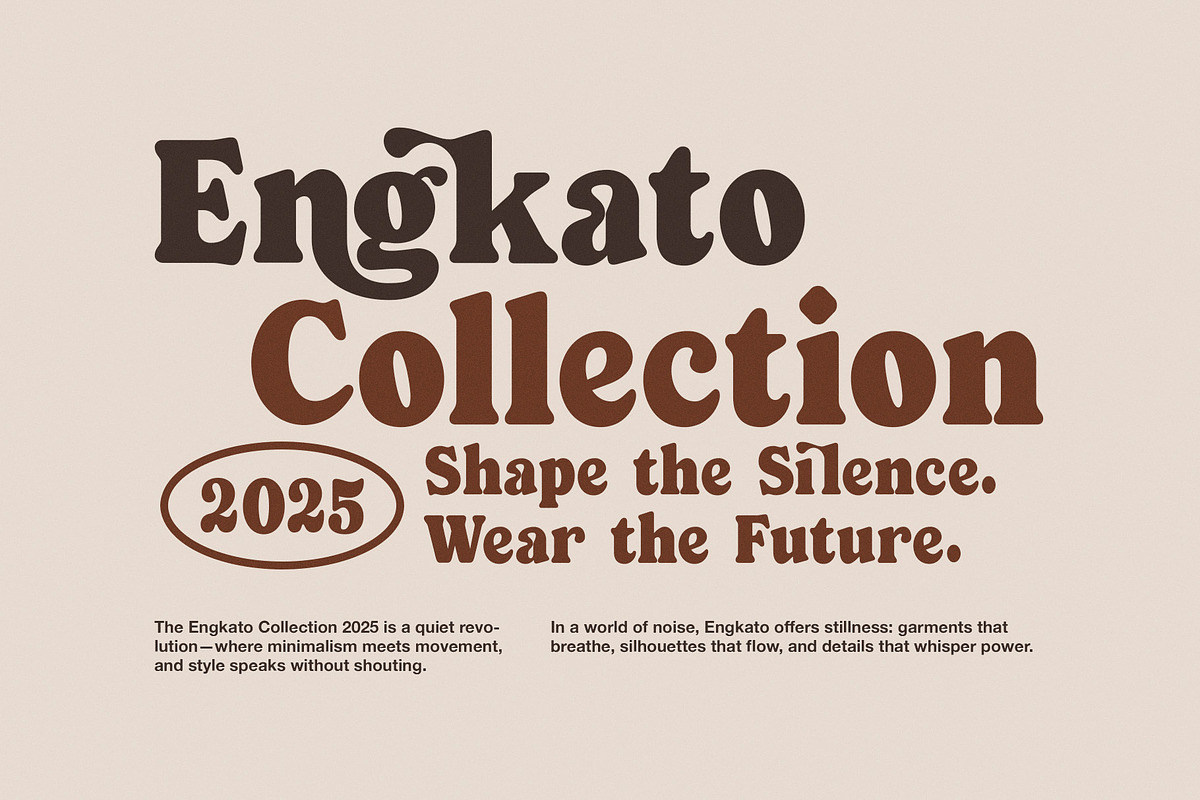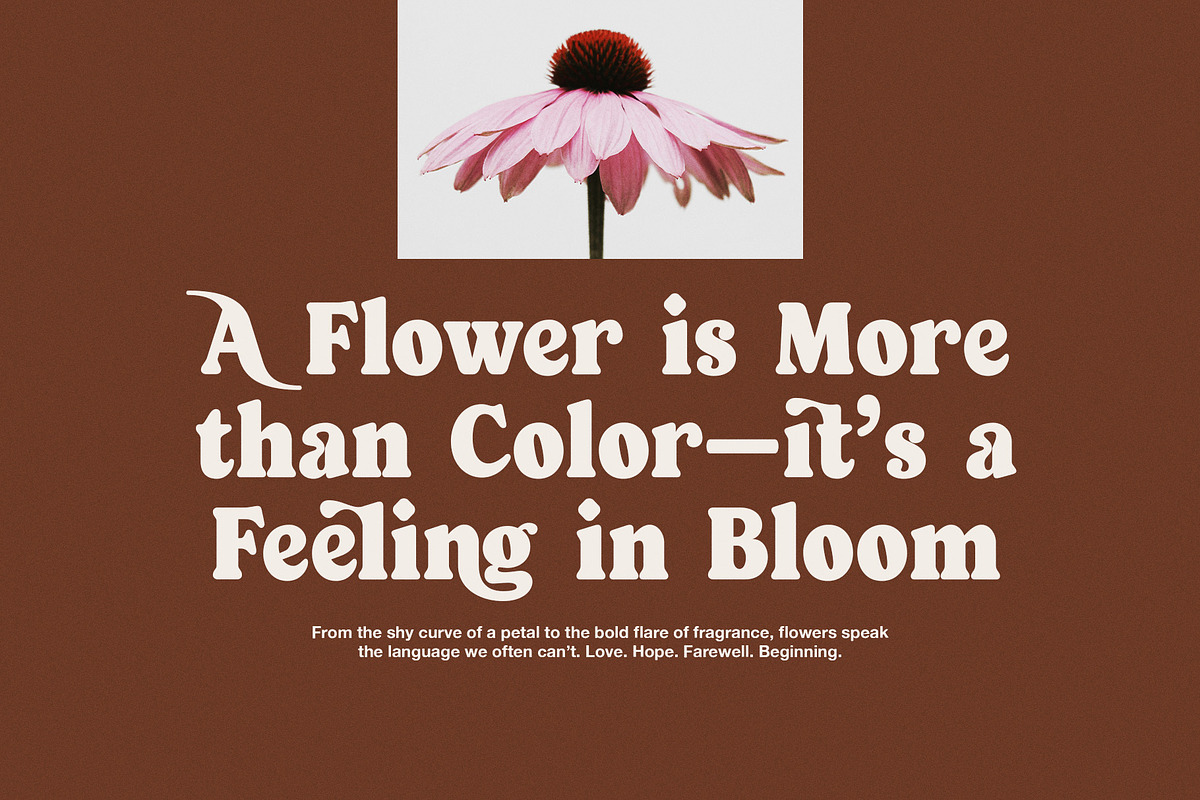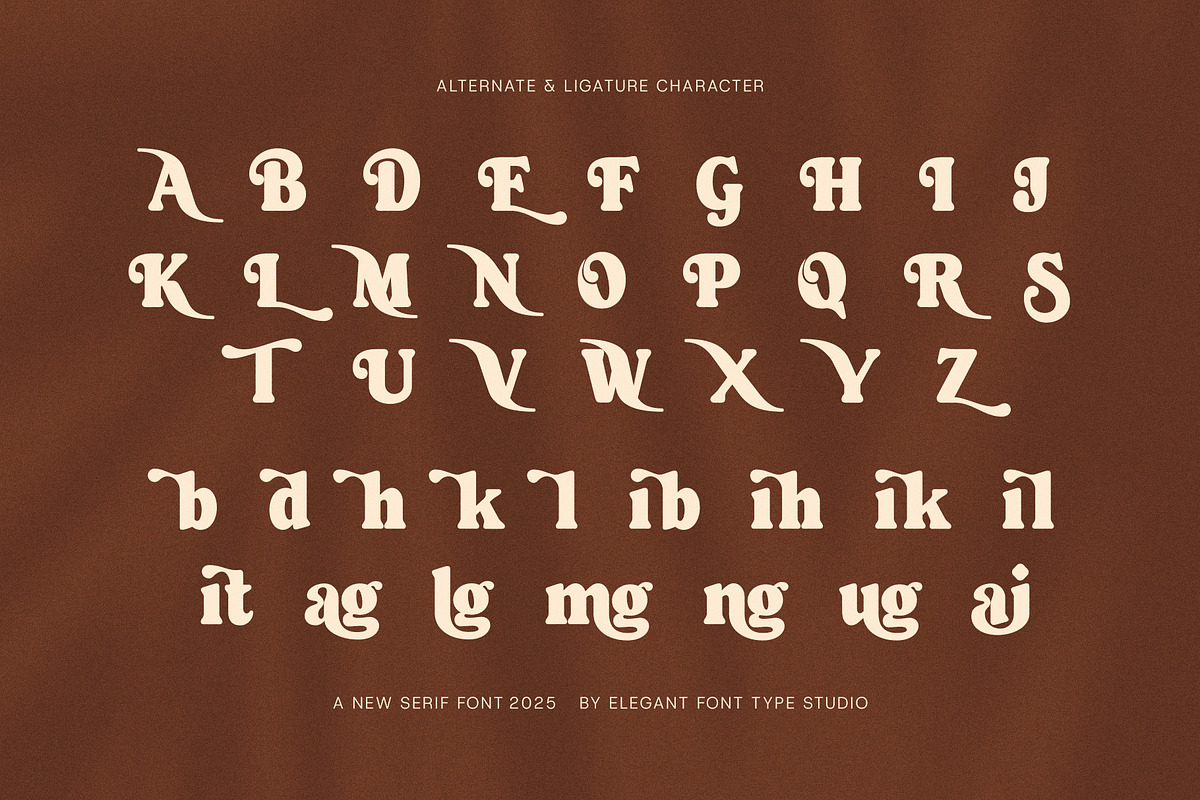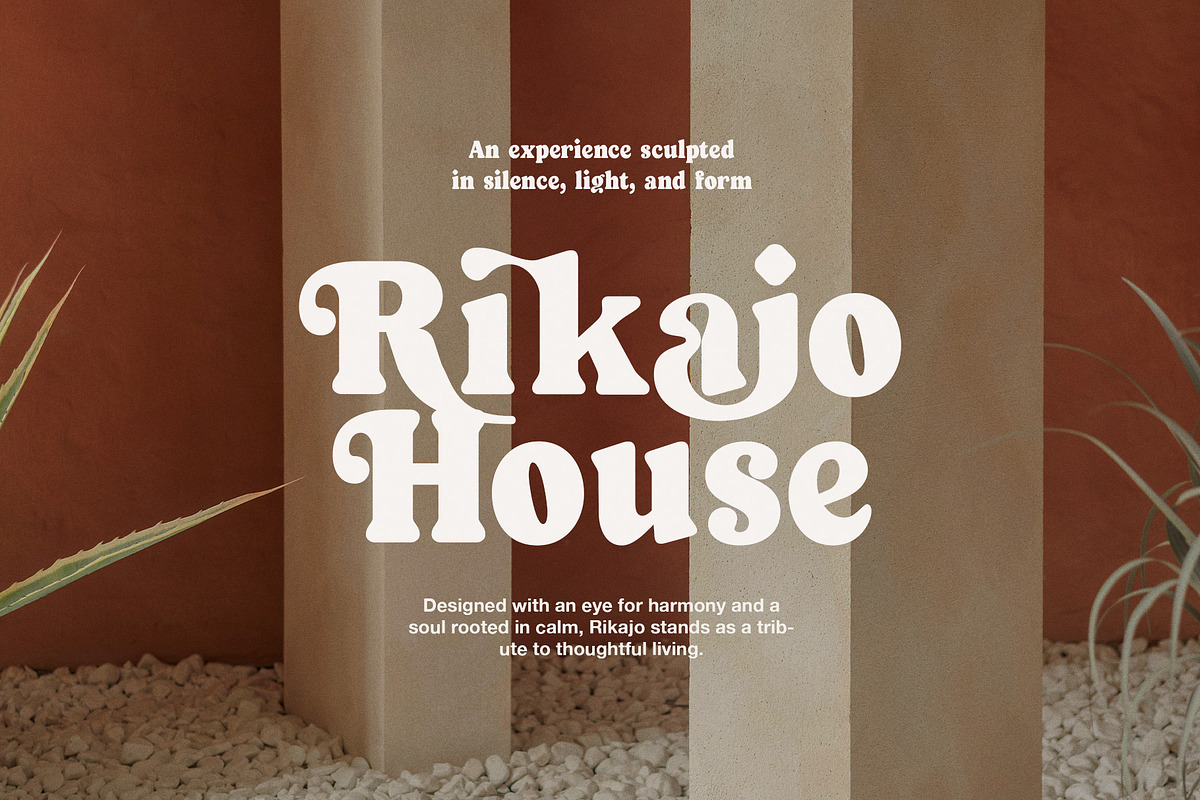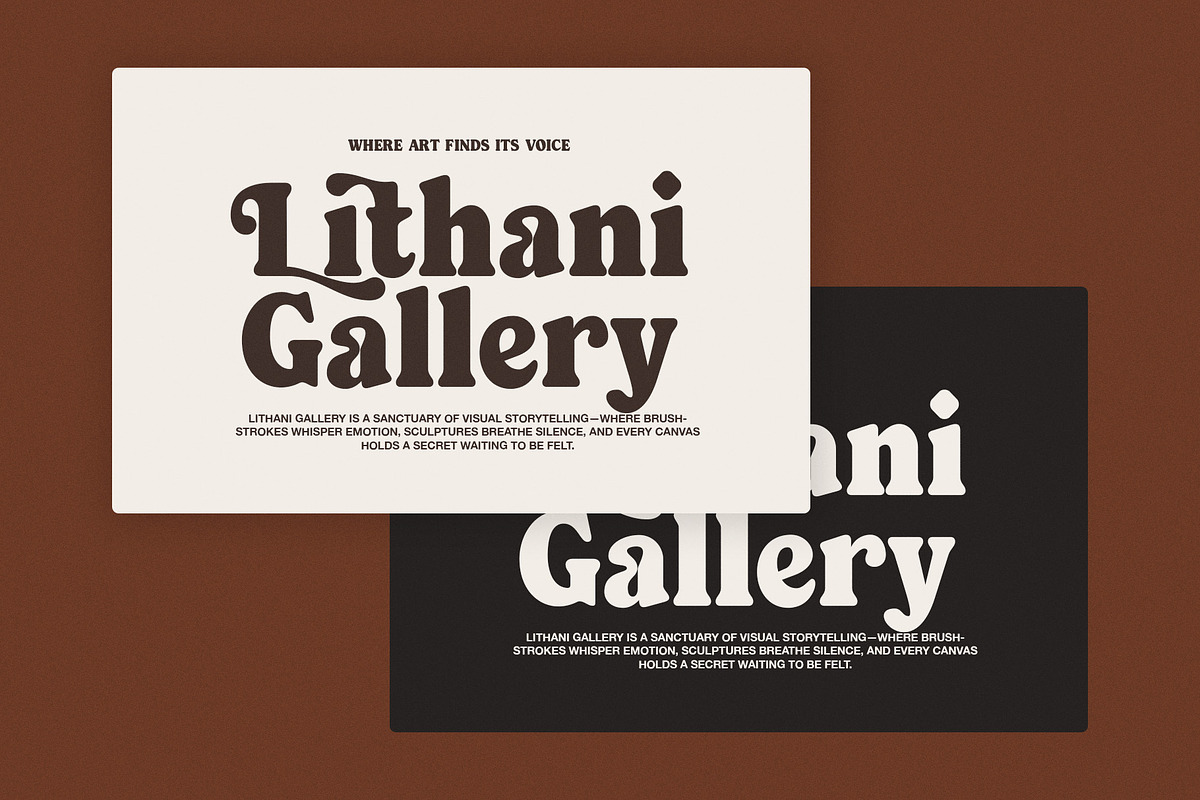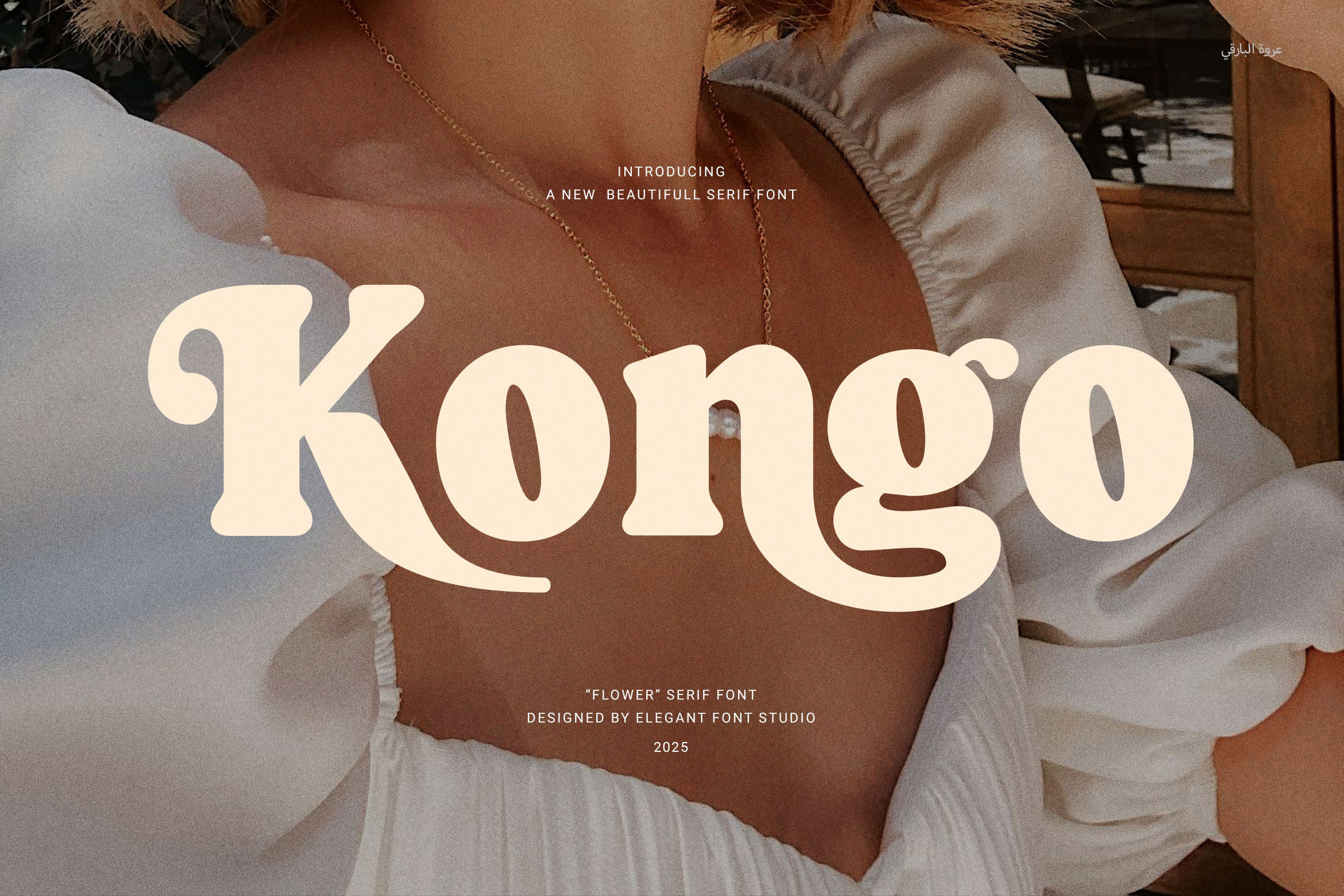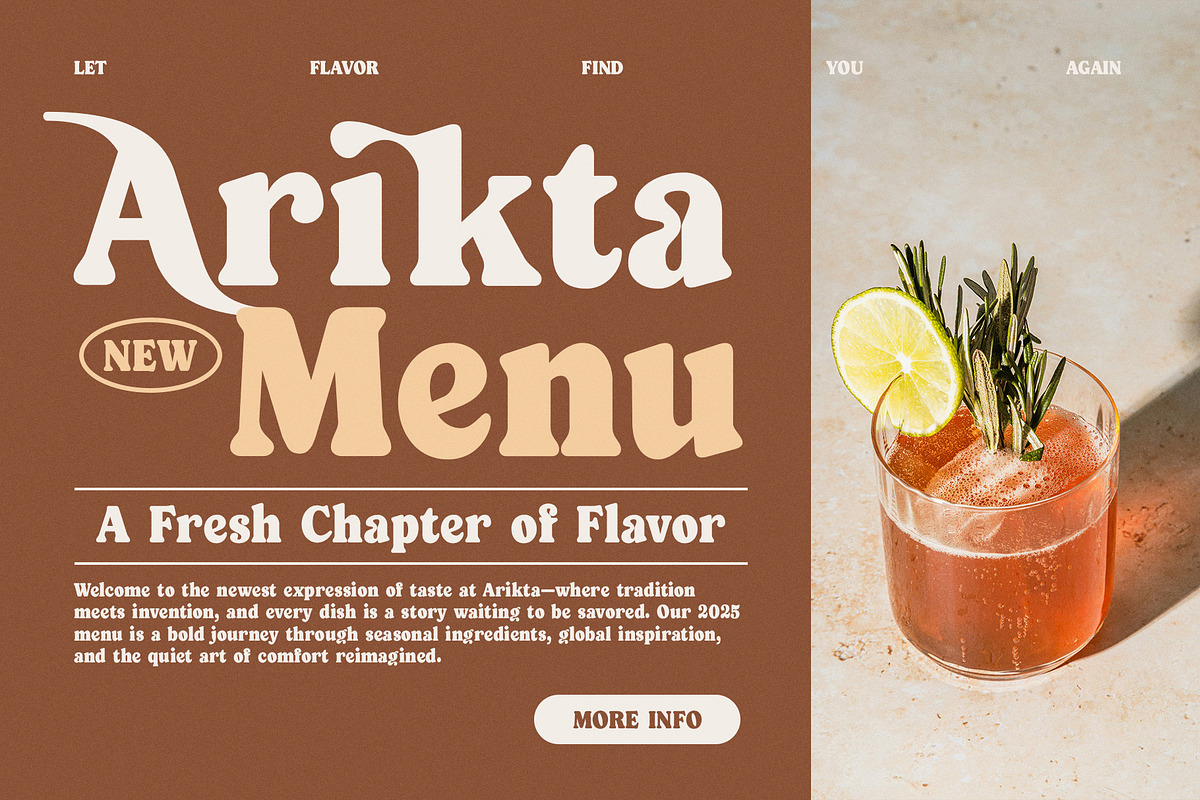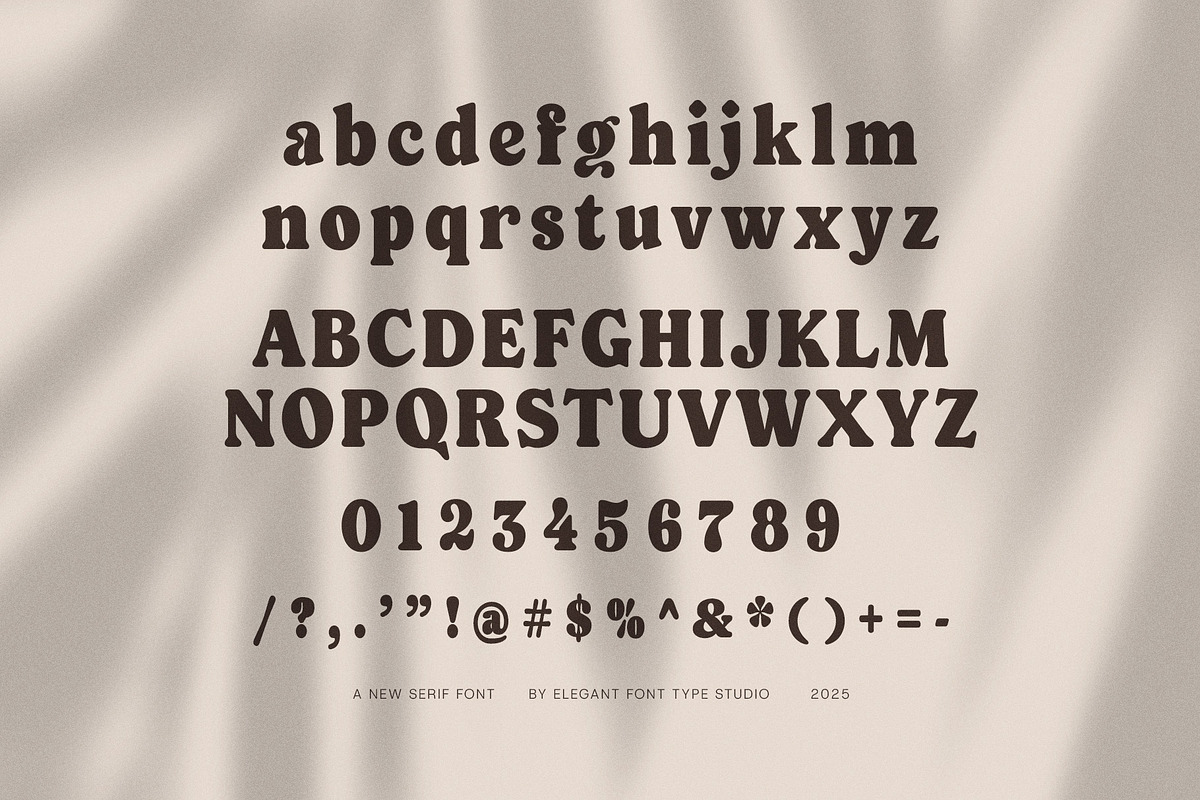
Kongo Elegant Serif Font
Kongo Elegant Serif Font — Modern Serif Typeface for Distinctive Branding
Kongo Elegant Serif Font is a modern, stylish serif typeface crafted to meet all branding needs. Its proportional letterforms and smooth functional ligatures bring harmony and elegance to every design. Whether you’re working on logos, websites, magazines, layouts, product packaging, or advertisements, Kongo elevates your project with a polished and professional look.
Designed for versatility, Kongo suits a wide range of industries, including boutiques, food brands, fashion, and corporate businesses. It balances readability and beauty, ensuring your message connects clearly with your audience in both print and digital formats. The carefully crafted ligatures add a refined touch that makes text flow naturally and attractively.
Key features of Kongo Elegant Serif Font:
Modern serif design with proportional shapes for balanced typography
Functional ligatures that enhance text flow and aesthetics
Perfect for logos, branding, websites, magazines, layouts, and packaging
Ideal for boutiques, food products, fashion, advertising, and corporate use
High readability across print and digital platforms
In summary, Kongo Elegant Serif Font delivers elegance, clarity, and functionality. It’s the perfect choice to make your branding stand out with style and professionalism.